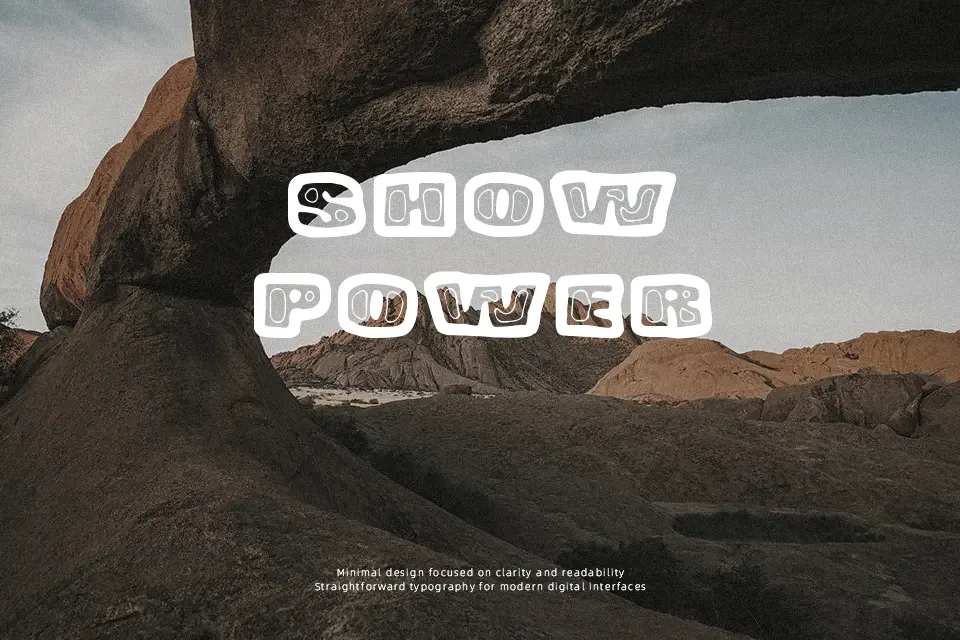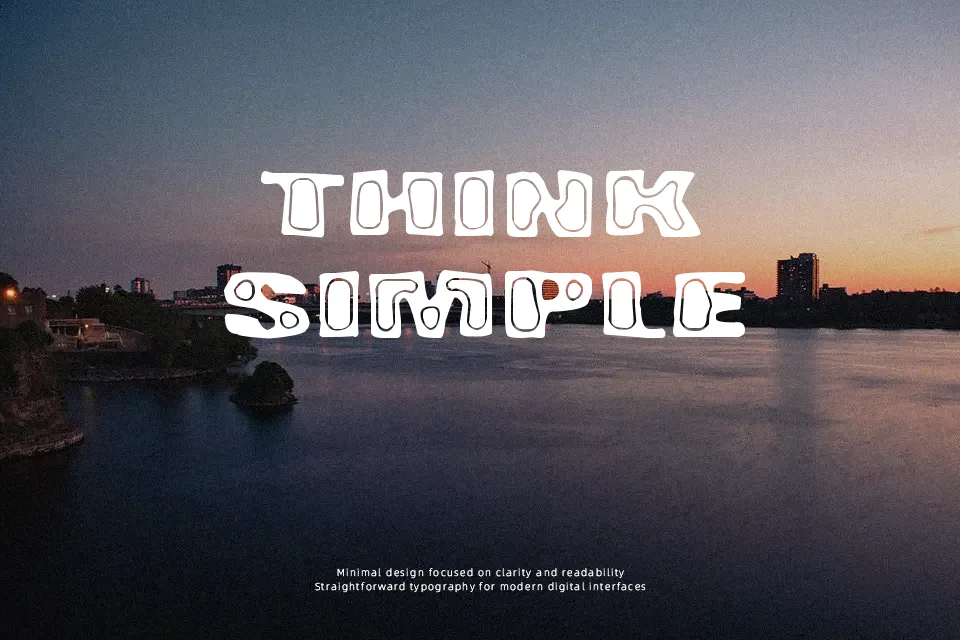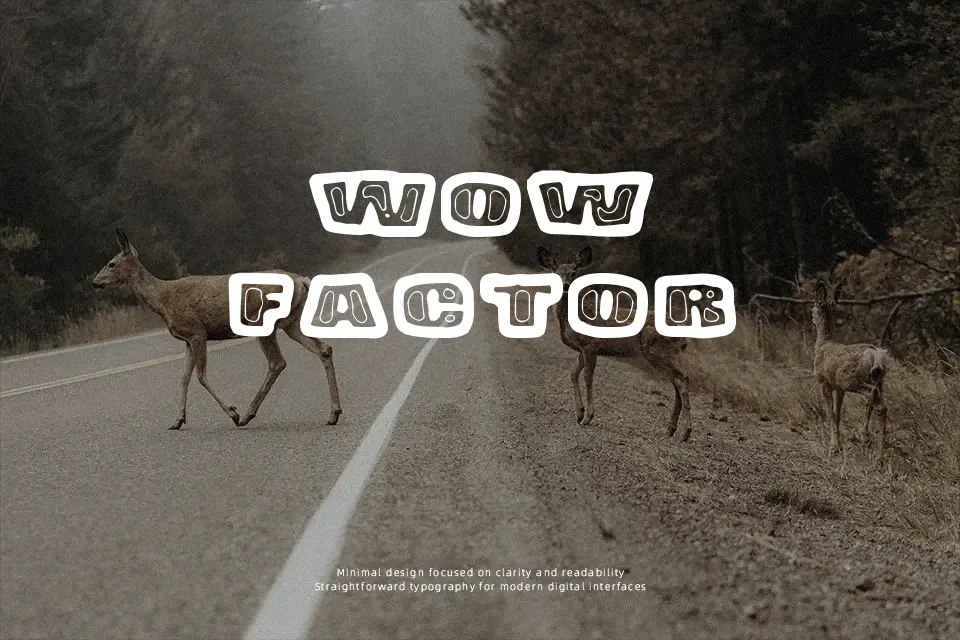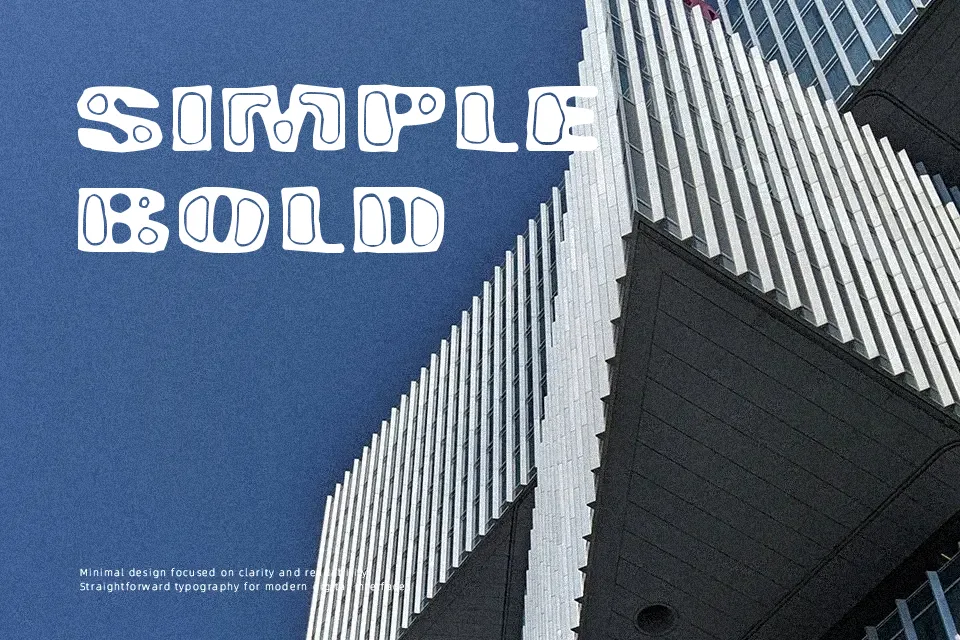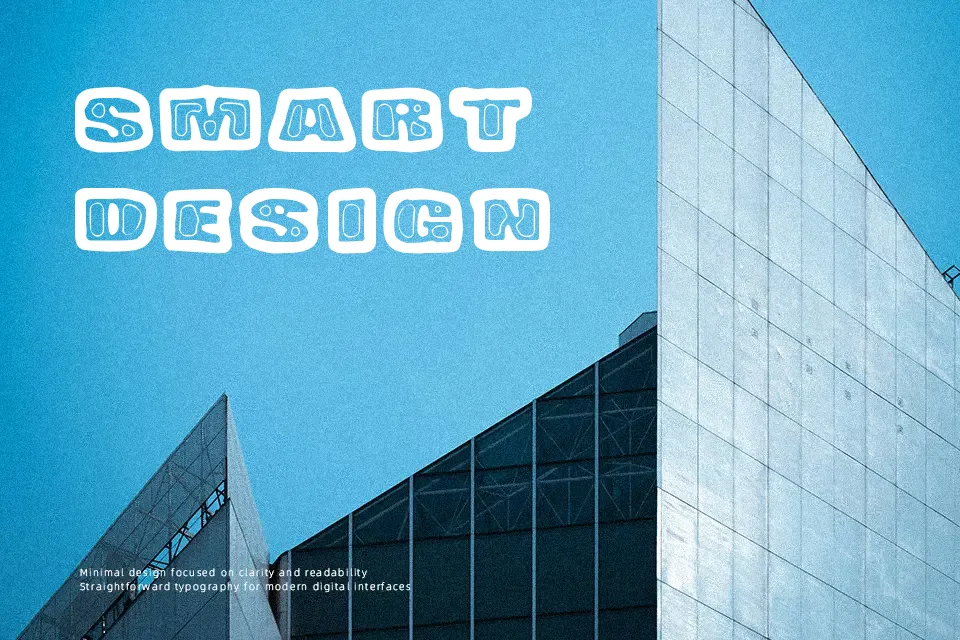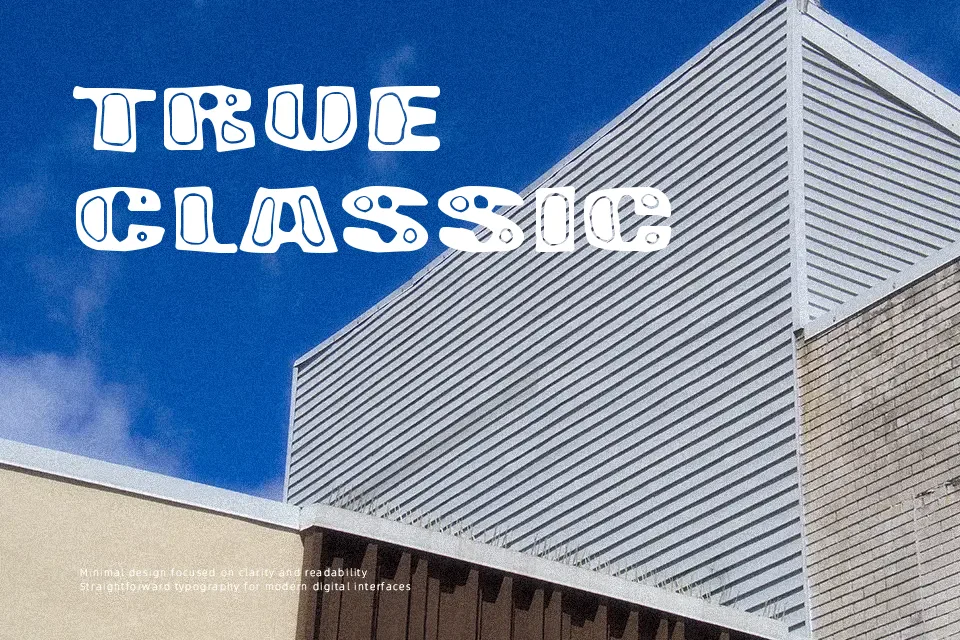
Bad Pizza Font
Designed by Juha Korhonen
Bad Pizza leans into a thick, uneven stroke structure that makes each letter look slightly wobbly, as if cut from gooey slices of cheese. The spacing runs tight and compact, pushing letters together into a solid, cartoon-style block that quickly grabs attention on menus, banners, and food-themed posters. Its decorative fantasy feel suits casual restaurant branding, kids’ materials, or light-hearted Halloween or party titles where you want a messy, fun edge rather than clean professionalism. However, the dense shapes and busy silhouettes make it hard to read in small sizes or long paragraphs, so it works best in short headlines. Use it when you need loud, playful energy; avoid it when clarity and refinement matter more.
food truck or pizza stall logos
casual restaurant menu headings
kids’ party posters and flyers
playful social media promo graphics
body copy or long paragraphs
formal corporate branding
serious editorial layouts
professional business reports
Perfect for branding, logo, and packaging, with a artistic and cartoon style.